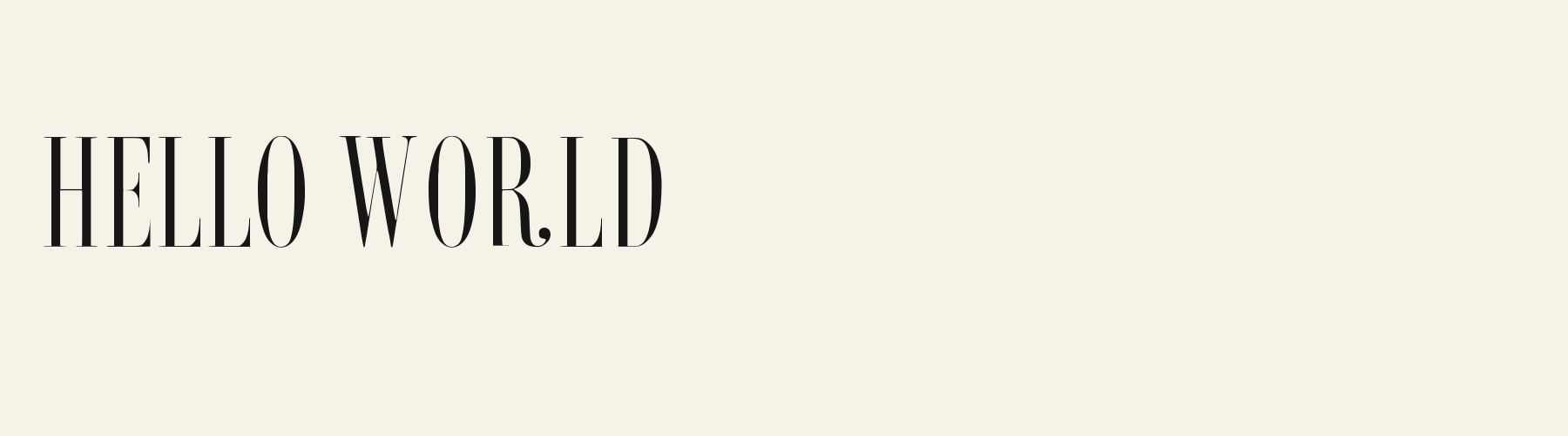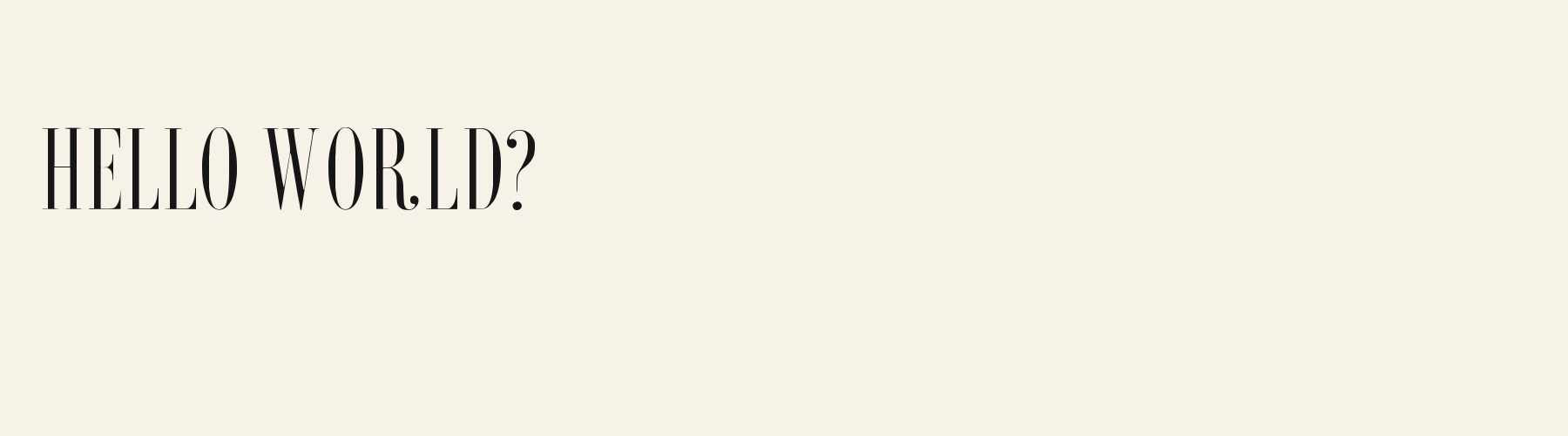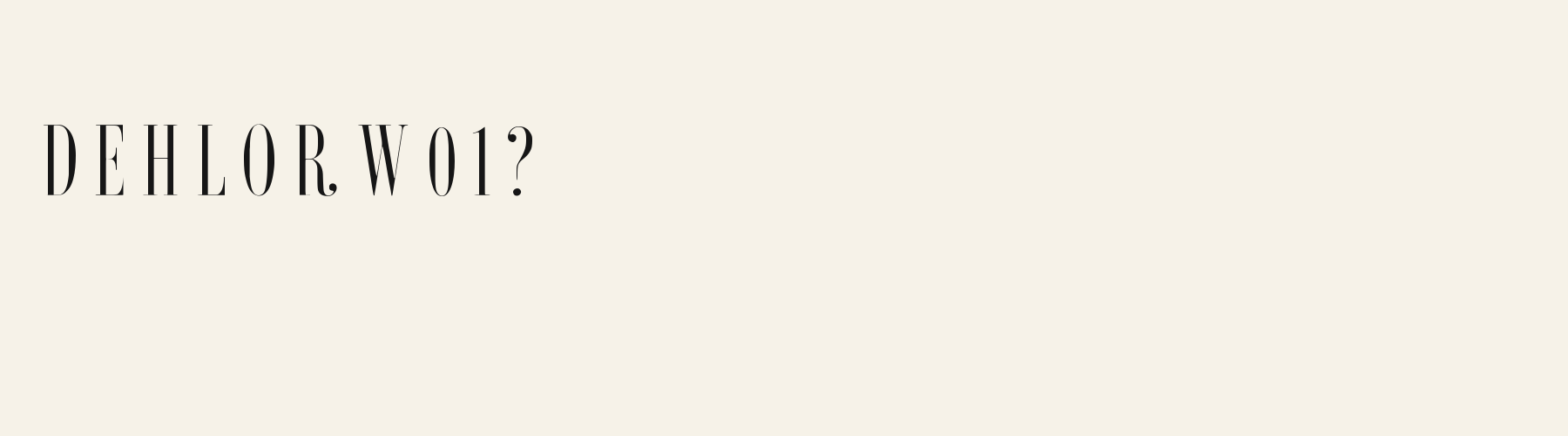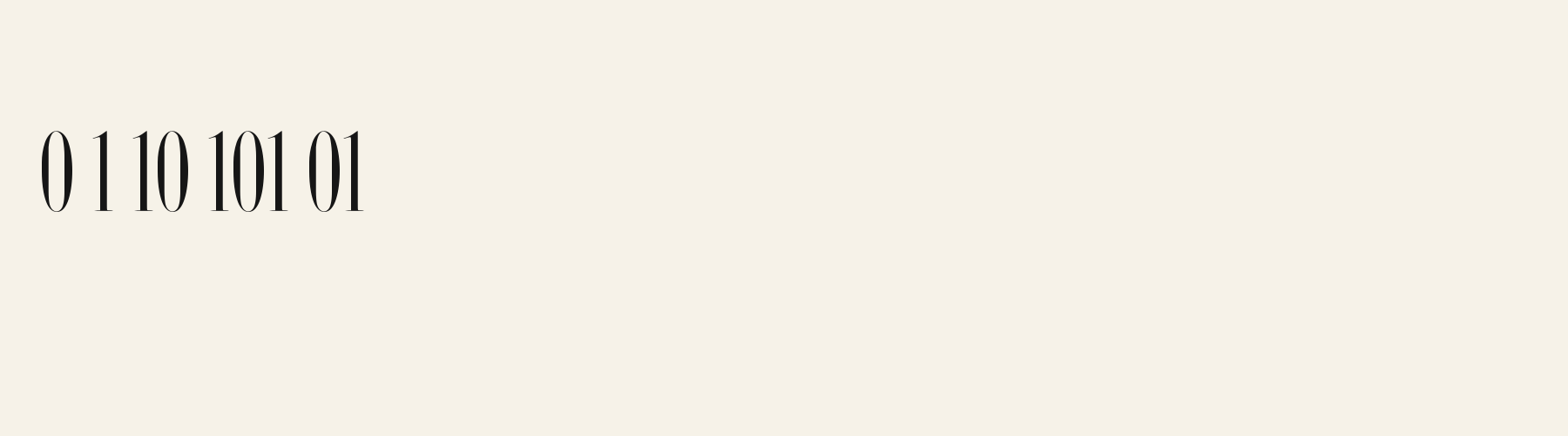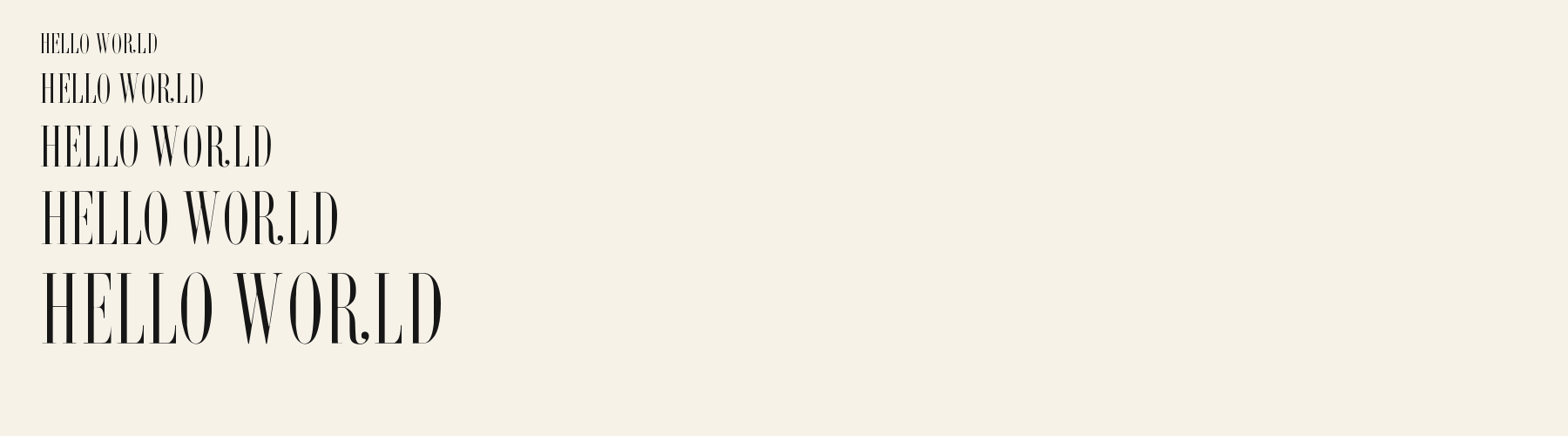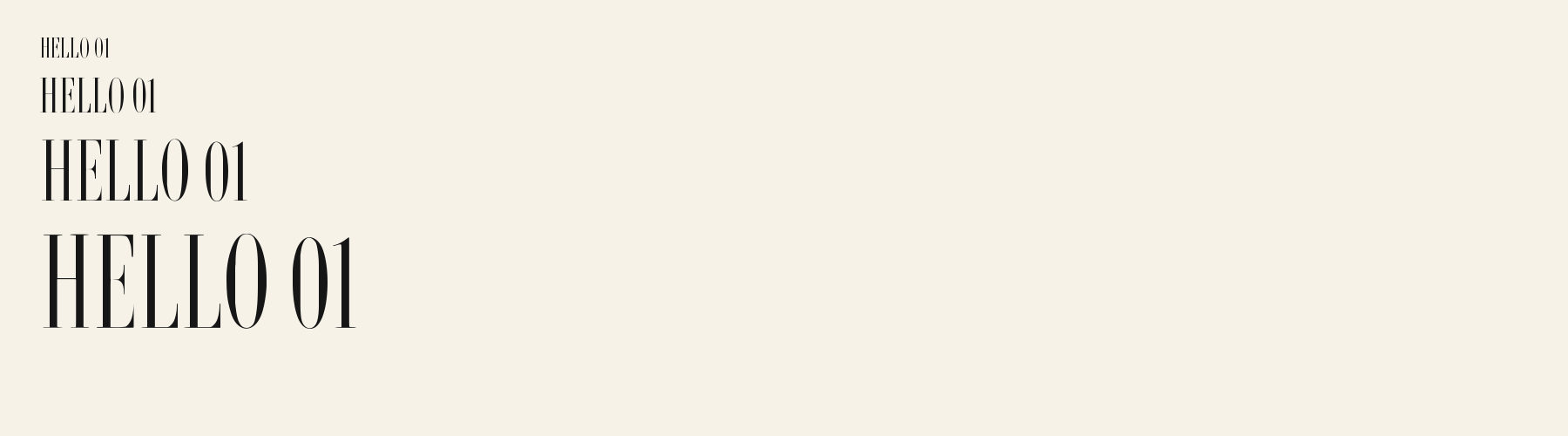
Quartz Nocturne Beaded Curl Oval Serif Font
Quartz Nocturne draws its character from tall, narrow capitals and a sharp contrast between dark uprights and fine connecting strokes.
Beaded Curl Oval Serif Letterforms
Quartz Nocturne draws its character from tall, narrow capitals and a sharp contrast between dark uprights and fine connecting strokes. The O has an elongated oval contour and a similarly slender counter, with almost threadlike curves at the top and bottom. The R adds a distinctive flourish: its leg descends into an outward curl ending in a rounded bead. On E, fine horizontal arms extend from a firm vertical stem, with pointed flares at their ends. Thin, flat serifs keep the baseline crisp. Together, these details give short headings a poised, formal mood with a touch of ornament.
Check the curled R, narrow O counters, and fine crossbars in your actual wording, including reversed previews. These specimens show Latin capitals; inspect lowercase, accents, and any other script separately before committing to a layout.
Try this face for short lead headings, with a moderately weighted sans serif for supporting text and labels. Its narrow ovals and delicate crossbars suggest a companion with wider counters and more even strokes.
Quartz Nocturne: letterforms and layout
Compare smaller and larger previews while watching the fine crossbar of H and the thin curves of O. The larger setting reveals the beaded curl on R more clearly; inspect whether that detail stays distinct in the smaller setting.
In this uppercase phrase, Quartz Nocturne has taller, narrower proportions, elongated oval O forms, and an R whose leg curls into a bead. Choose it when a slender silhouette and a small ornamental finish support the composition.
In the same uppercase phrase, Serif Didone Fashion shows broader letters, heavier vertical strokes, and an R with a straight diagonal leg. Try it when the composition calls for more substantial letter shapes and a more angular finish.
Book or album cover. Tall oval capitals and the curled R give a spare book or album cover a distinctive focal point. AN EVENING
Card or invitation. Fine serifs and slender proportions suit an invitation heading framed by generous blank space. THE NEW EDIT
Website headline. Narrow capitals create a compact editorial heading, while the fine horizontal strokes bring delicacy to the page.
The x-height is a compact 63.6% of the cap height, below the 69.6% median for serif fonts, lower than 49 of the 51 other serif fonts. Ascenders on b, d, h, k and l line up with the capitals (97.9% of their height), and descenders on g, j, p, q and y drop 26.6% of the cap height below the baseline, shallower than 38 of the 51 other serif fonts. It sets narrow: an average lowercase letter, spacing included, is 41.8% as wide as the capitals are tall (an average capital, 54%), 49.9% less than the median for serif fonts, so more words fit on a line. The o is an upright oval, 0.51 times as wide as it is tall, and W is the widest capital, at 1.45 times the width of H. Round letters overshoot: O rises 0.9% of the cap height above H and dips 0.7% below the baseline.
The letters stand upright, leaning less than 2.5° either way. Vertical stems measure 8% of the cap height, lighter than 42 of the 44 other serif fonts. Ink covers 20.9% of each lowercase letter's box (its advance width by the cap height), lighter than 46 of the 51 other serif fonts. Strokes change thickness with direction: the sides of o and O are 16.0 times as thick as their tops and bottoms.
Its 345 characters include 245 Latin letters, plus 100 figures, punctuation marks and symbols; 193 of the Latin letters are accented or special forms beyond A to Z. The word space measures 20.4% of the cap height, and the blank space either side of a lowercase letter takes up 14.9% of its width. Spacing is adjusted with 10,920 kerning pairs, the most of all 52 serif fonts. The tightest of them is Yj, which closes up by 26.8% of the cap height. The figures have different widths, so columns of numbers set in Quartz Nocturne will not line up exactly.